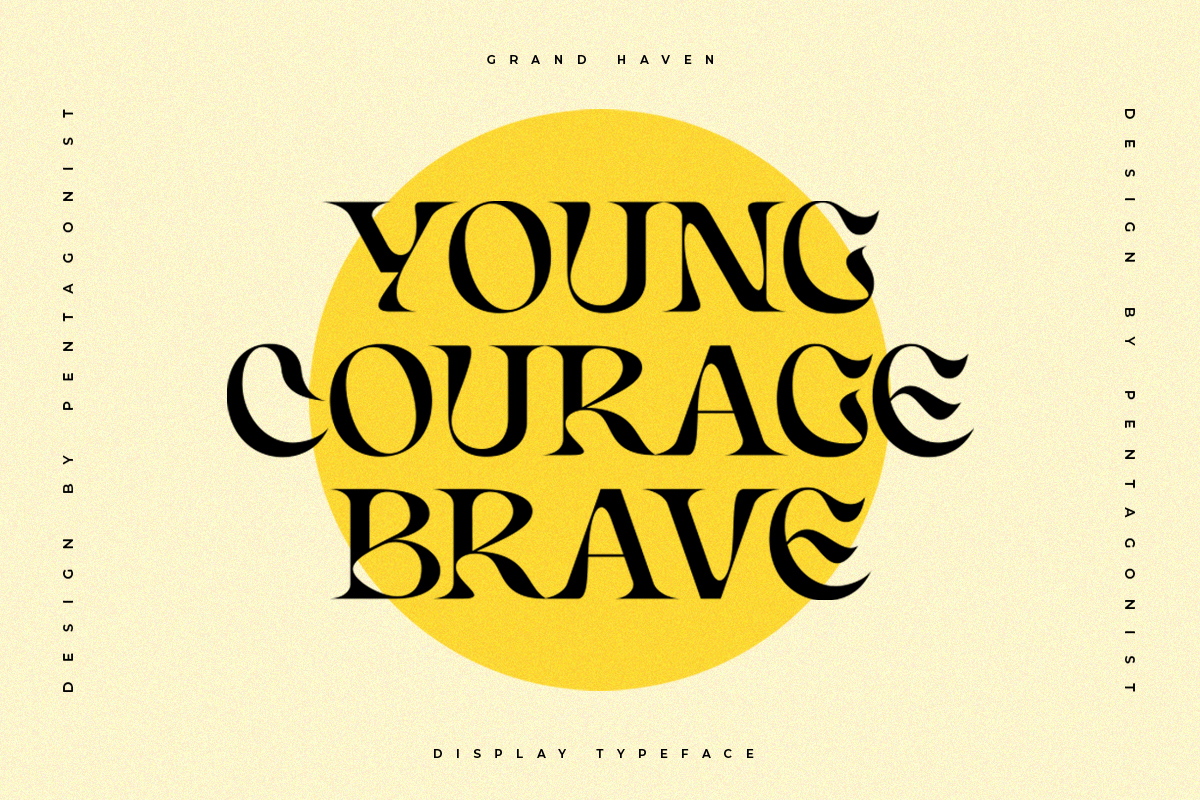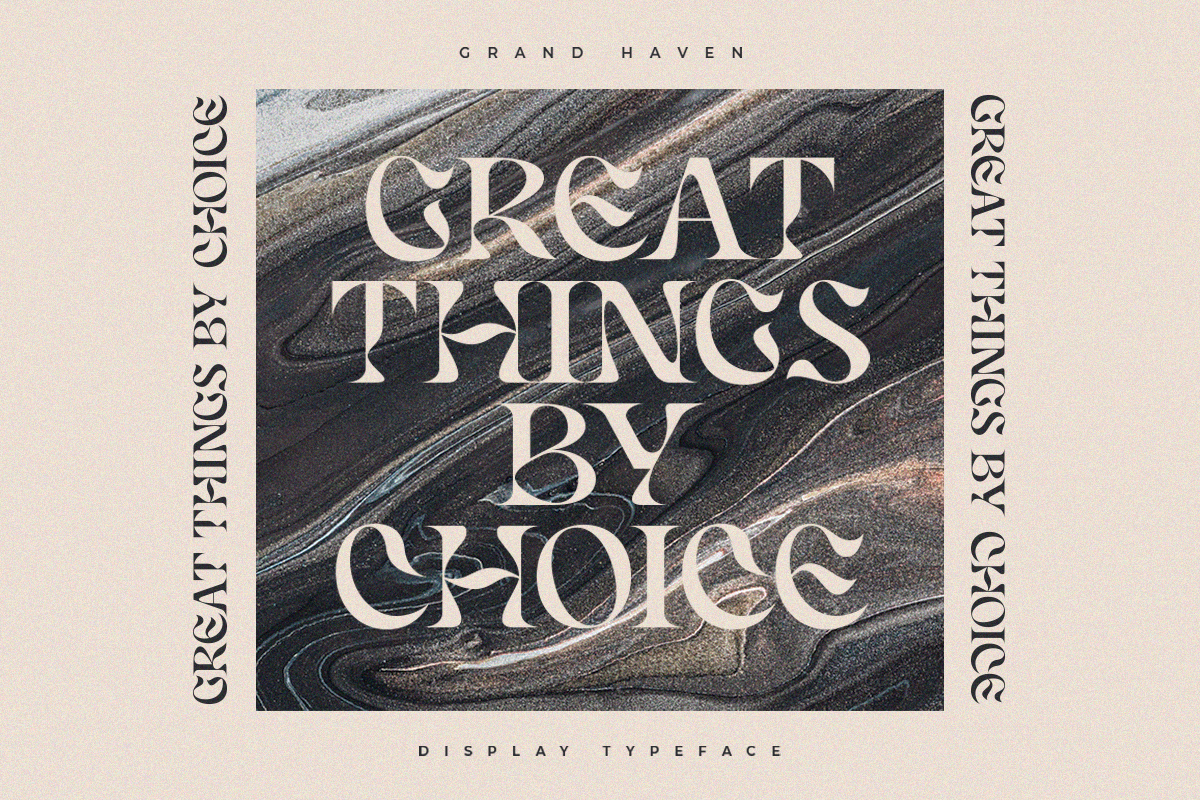
Grand Haven Font
Grand Haven Serif Font
This Is An Vintage Display Font Inspired By Nostalgic Characters. The modern high contrast serif has hints of nostalgia mixed with avant-garde curves to create a memorable addition to your font collection.